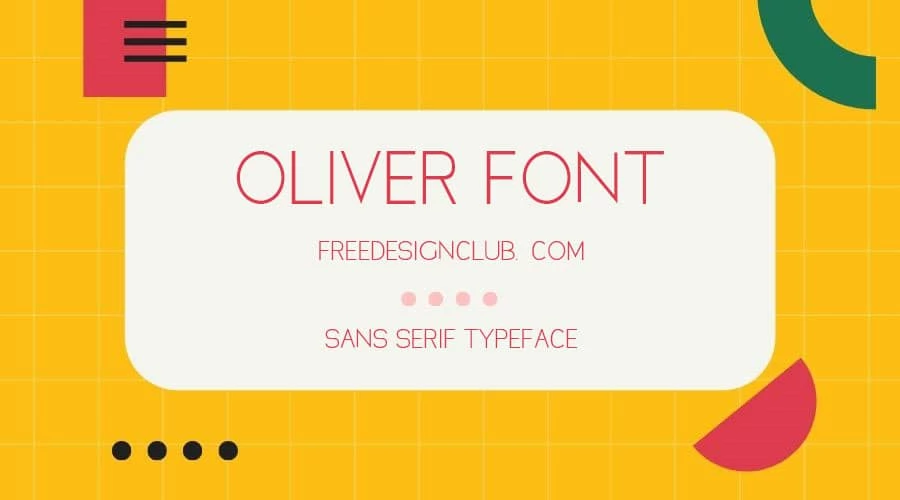
The year 2020 was very unfortunate for us but in 2020 FreeDesignClub.com gave us a wonderful font and its name is Oliver Font. Oliver is a sans-serif typeface designed and published by FreeDesignClub.com. It comes in 3 weights (light, regular, bold) and uppercase only. With multiple file-formats (OTF, TTF, EOT, SVG, WOFF & WOFF2), Oliver font is a great choice for both graphic and web design.
Being a modern font, Oliver is usable in all cases. It has a great look for the formal implementation as well. You can use this font on the platforms below:
- Since this font has a polite look, this font can be used very comfortably in official work. It is easily usable in official documents and printing.
- This font is also useful for designing. Oliver works great in branding, logos, headlines, and high fashion. The different weights give you a full range to explore a whole host of applications, from tech startups, and local events to sports matches.